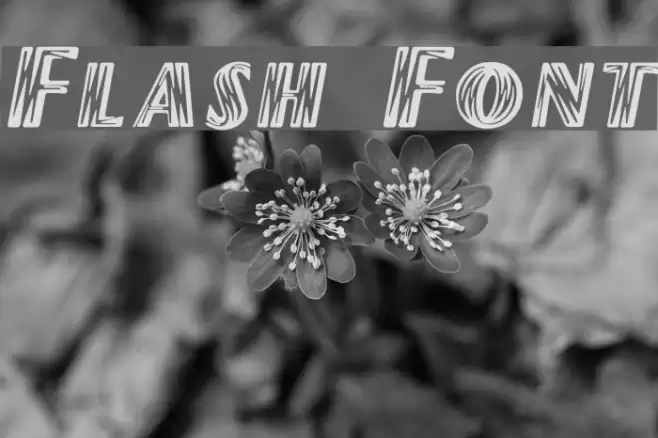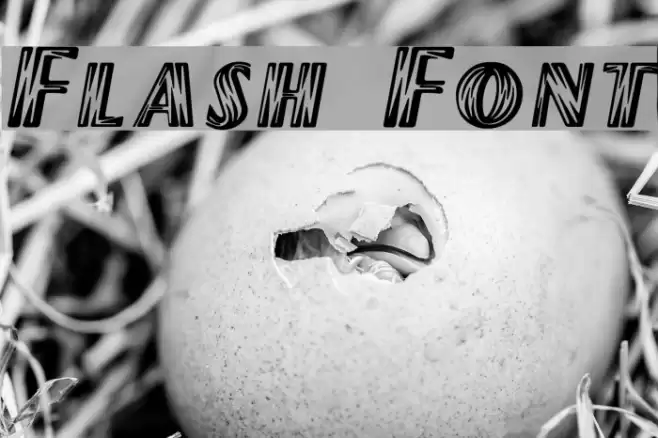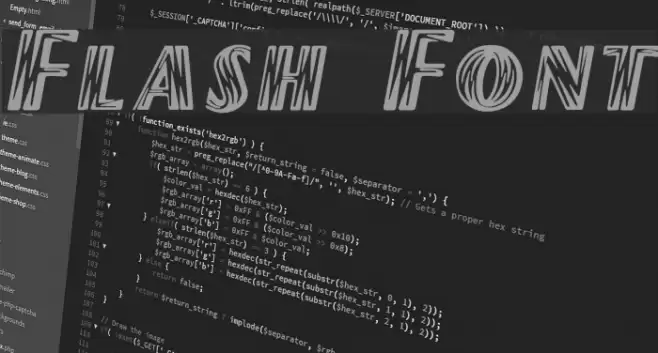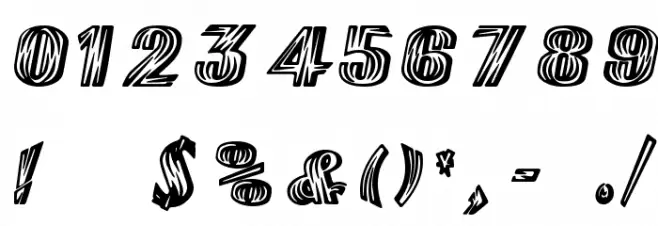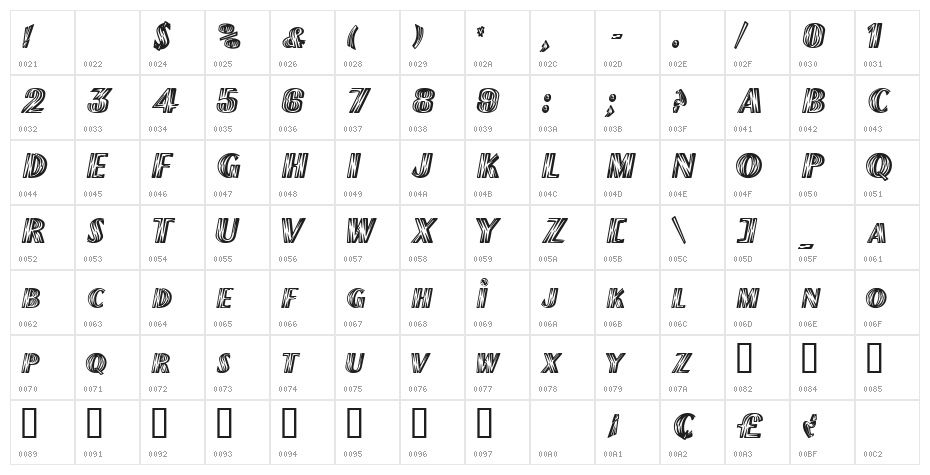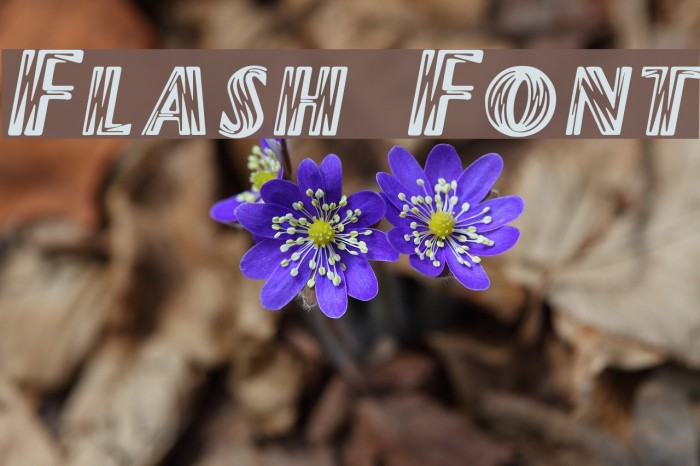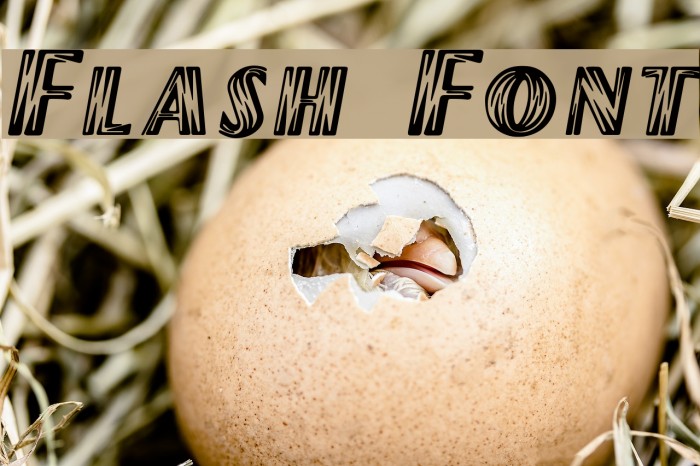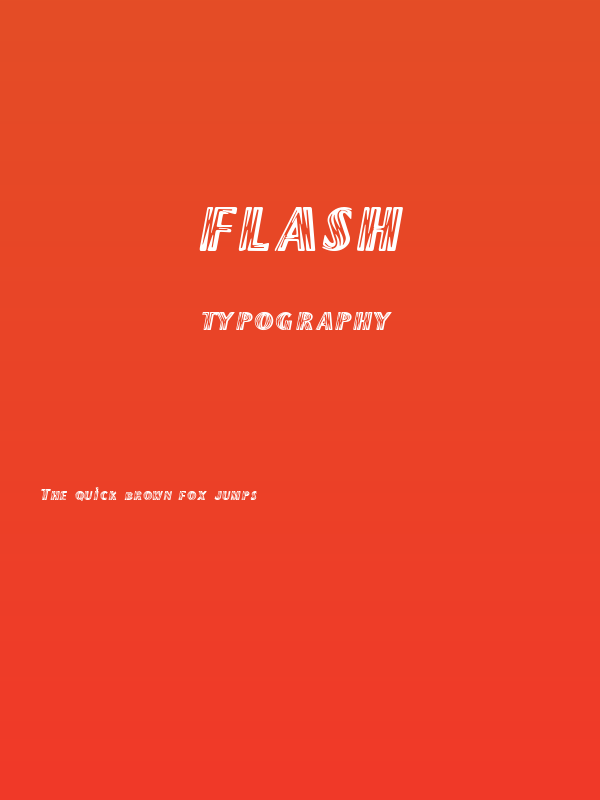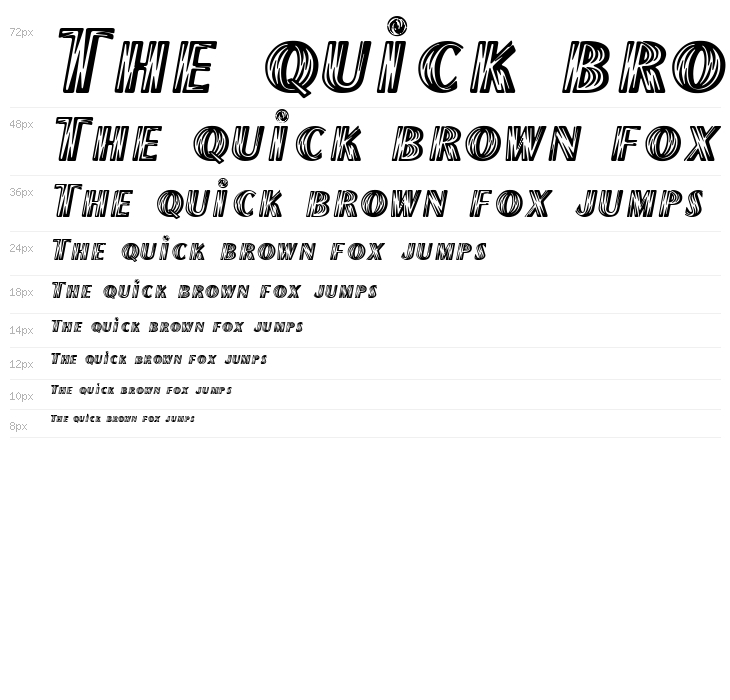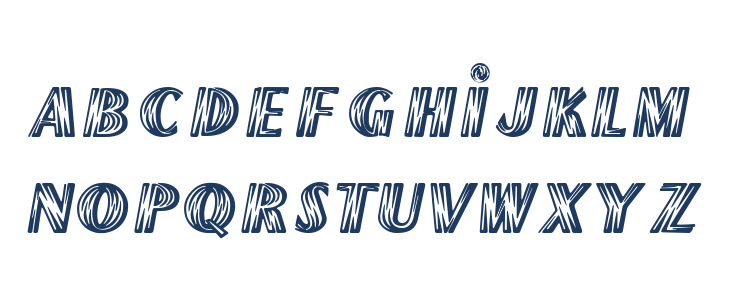
Flash Font
Flash Description
This font features a bold, dynamic style with a distinct three-dimensional effect. Each character is designed with a series of parallel lines that create a sense of movement and energy. The uppercase and lowercase letters maintain a consistent width, while the numbers and special characters follow the same energetic design. The font's unique style is both eye-catching and playful, making it suitable for projects that require a bold statement. Its decorative nature is ideal for headlines, posters, and branding materials that aim to capture attention.
A bold, dynamic font with a three-dimensional effect and energetic design from Uncategorized fonts.
- Proposed Projects: Ideal for posters, headlines, branding, and any project needing a bold, eye-catching typeface.
- Overall Style: Modern, Decorative
- Use Case: Headlines, Posters, Branding